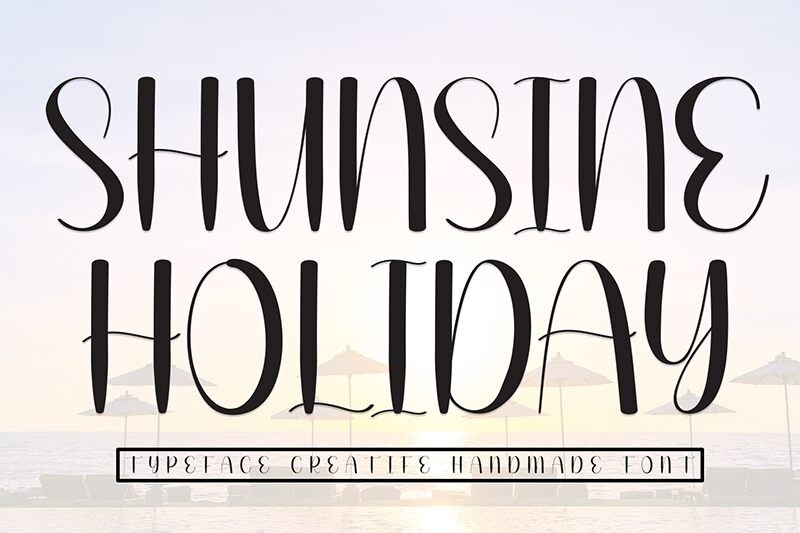
Sunshine Holiday
Sunshine Holiday font by Andi Moz is a free calligraphy font with an antiquated feel, ornate details, and whimsical undertones. The font’s decorative aesthetics finish each letter beautifully to make up its vintage-inspired flair.